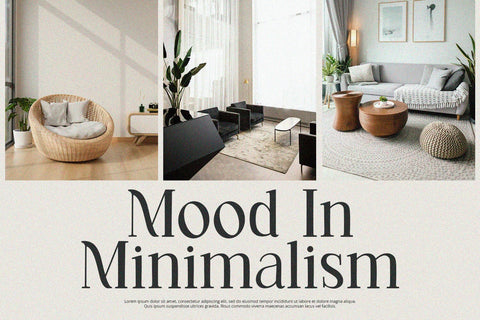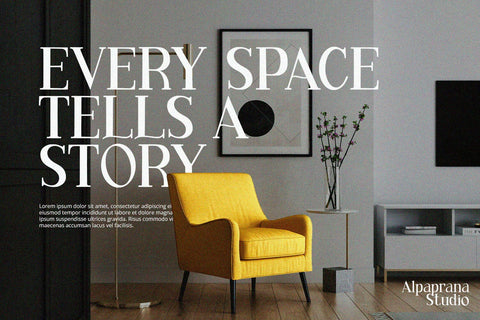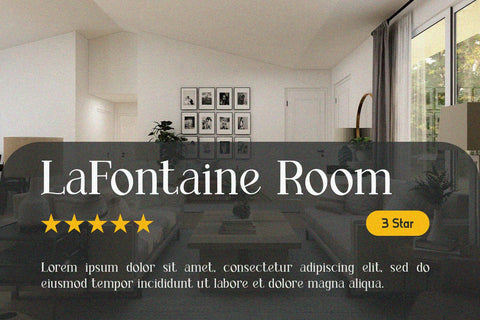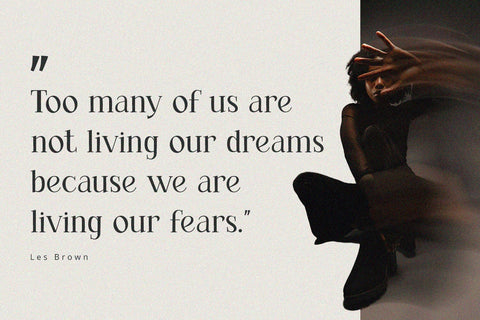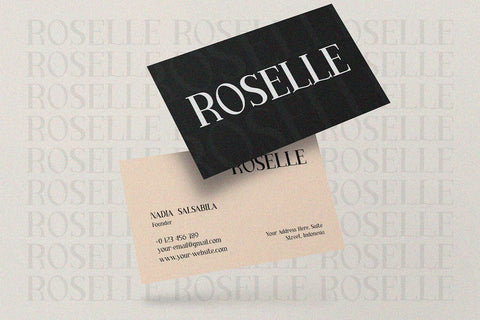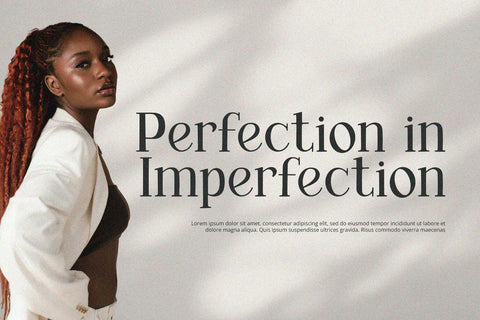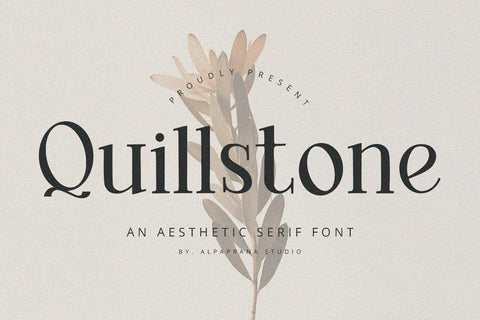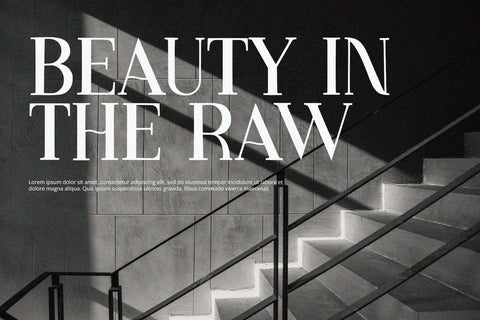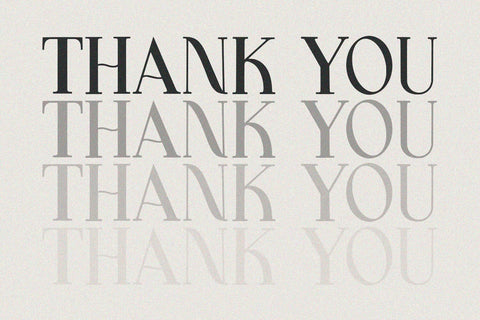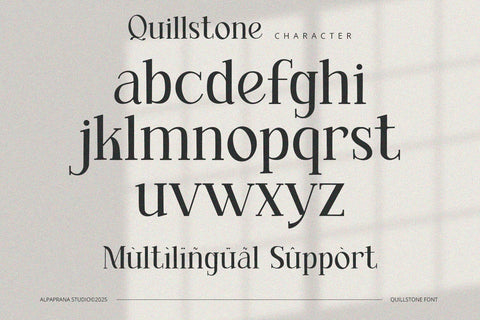
Quillstone - Serif Font
Quillstone is modern serif font with elegant and modern feels. It will be perfectly used for Branding, Logo Design, Lettering, Logotype, Clothing, Poster, magazine, packaging, posters, shopping bags, t-shirts, book covers, photography, special events and other design project.